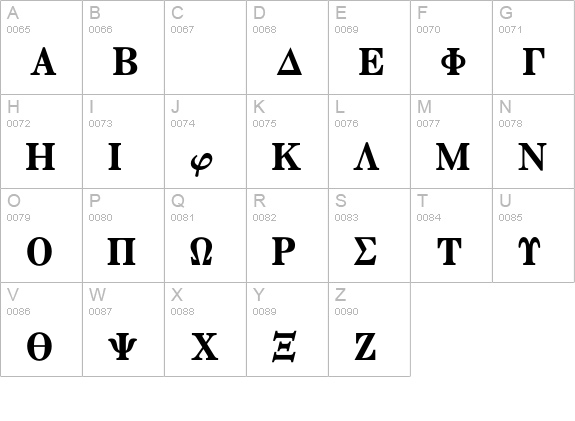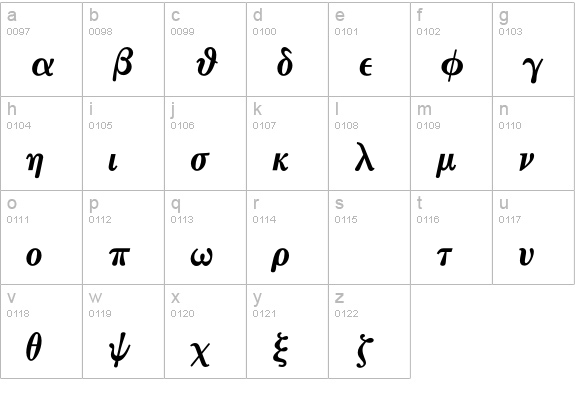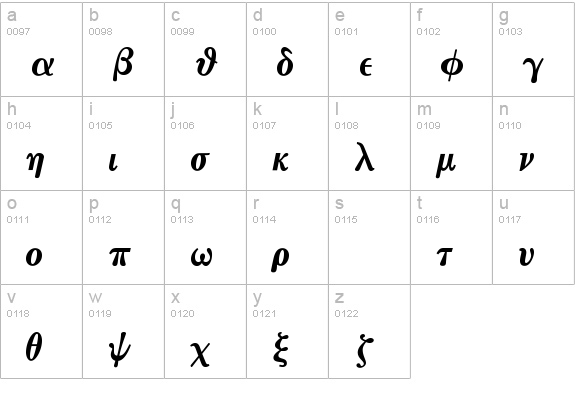
MathTechnicalP13 Font Details
Introducing MathTechnicalP13, a dynamic and versatile font designed specifically for mathematicians, scientists, and technical professionals. This font is meticulously crafted to enhance the presentation of complex mathematical equations, symbols, and formulas, making it an indispensable tool for academic research, technical writing, and scientific publications. MathTechnicalP13 features a clean and modern design, with perfect alignment and spacing, ensuring optimal readability even in the most intricate mathematical expressions. Its sleek and professional appearance adds a touch of sophistication to any document, whether it be a research paper, thesis, or presentation slides. One of the most remarkable aspects of MathTechnicalP13 is that it is freely available to download at FontsMarket.com. This means that mathematicians and scientists from all walks of life can access this exceptional font without any cost, enabling them to elevate their work to new heights of clarity and professionalism. With MathTechnicalP13, complex equations and mathematical notations become effortlessly elegant, allowing readers to focus on the content without any distractions. Its extensive character set includes a wide range of mathematical symbols, operators, and greek letters, ensuring complete coverage for all your technical writing needs. Whether you are a seasoned mathematician or a student just beginning your scientific journey, MathTechnicalP13 is a font that will revolutionize the way you communicate your ideas. Its bold and precise strokes convey a sense of authority and expertise, making your work stand out in a crowded field of academic literature. Download MathTechnicalP13 today from FontsMarket.com and experience the power of this exceptional font firsthand. Embrace the freedom to enhance your mathematical and technical communication, and let MathTechnicalP13 be your trusted companion in showcasing your brilliance to the world.